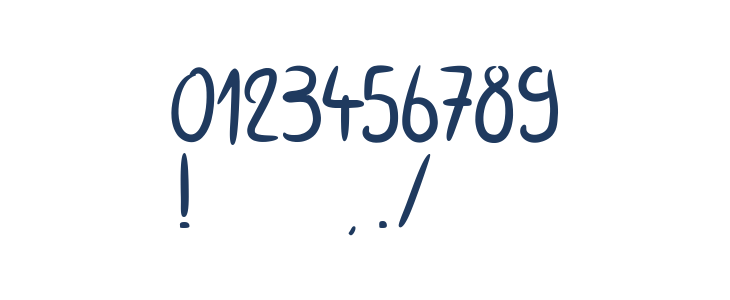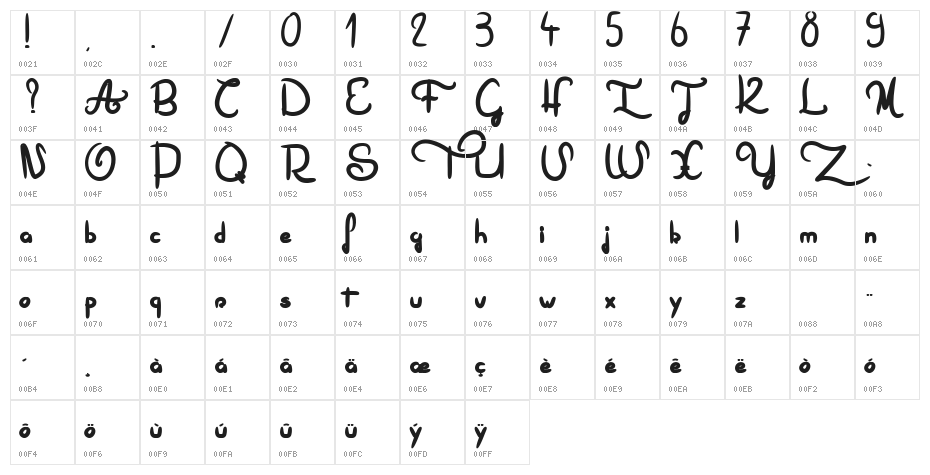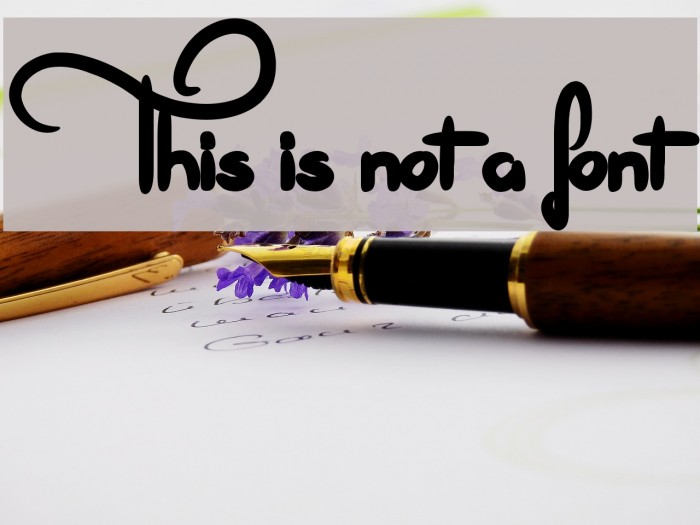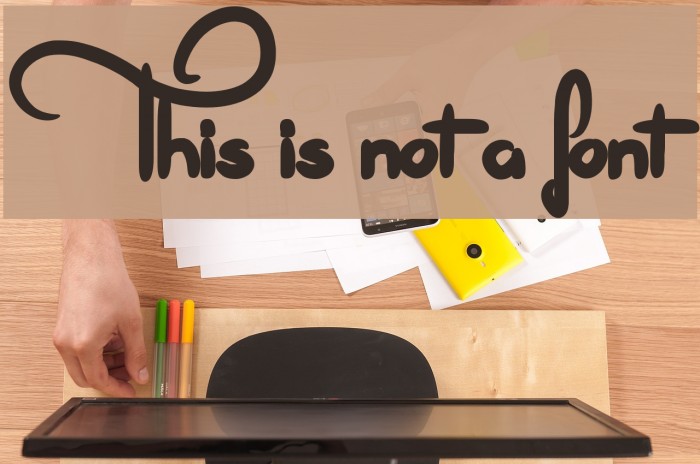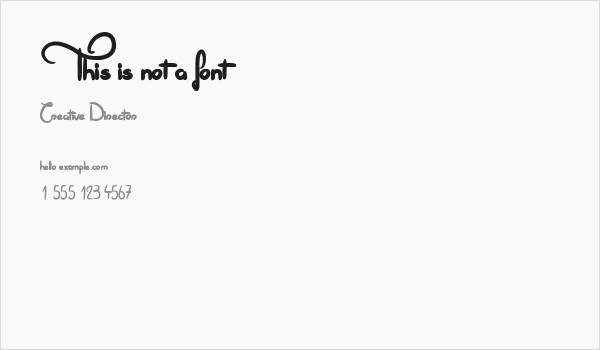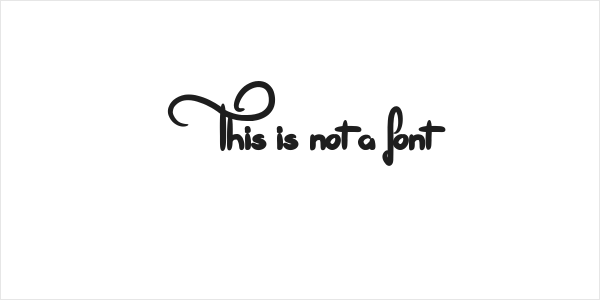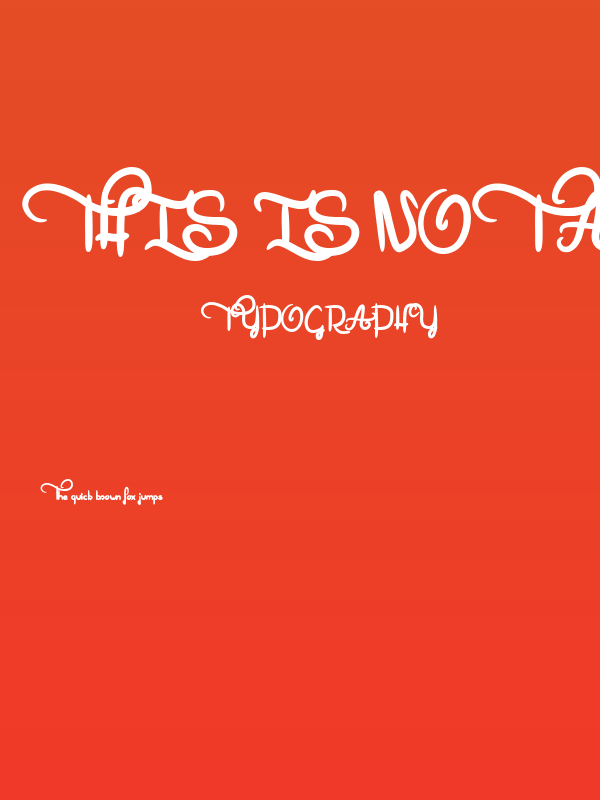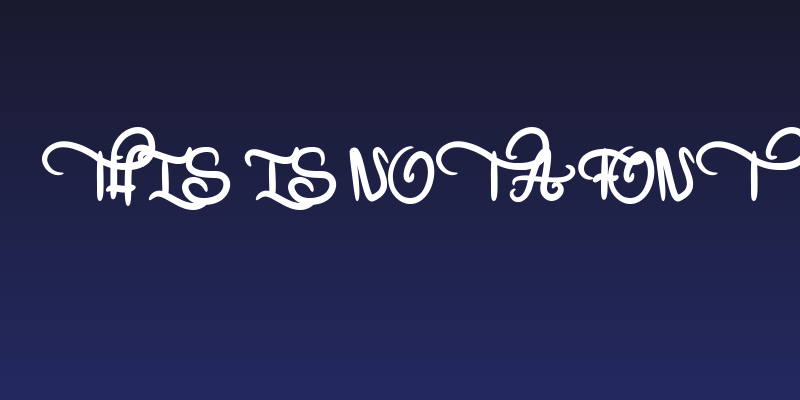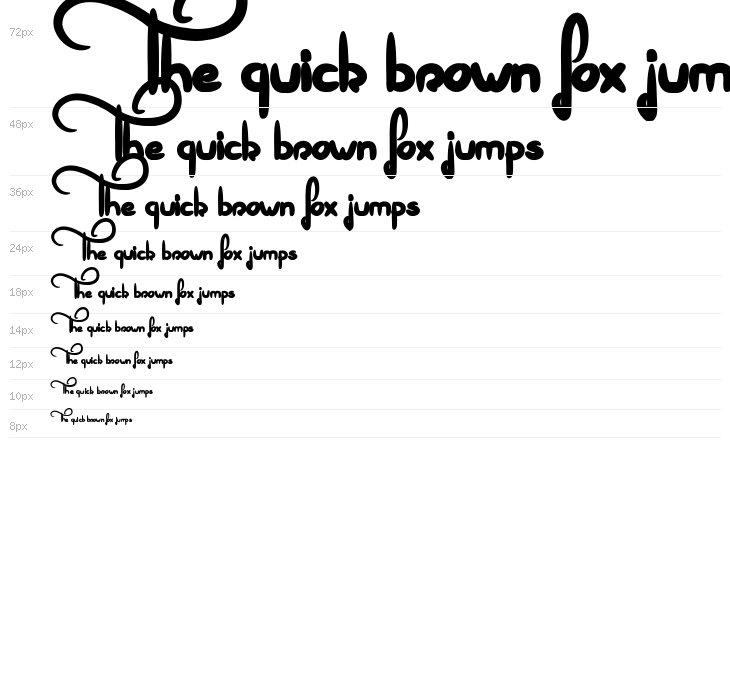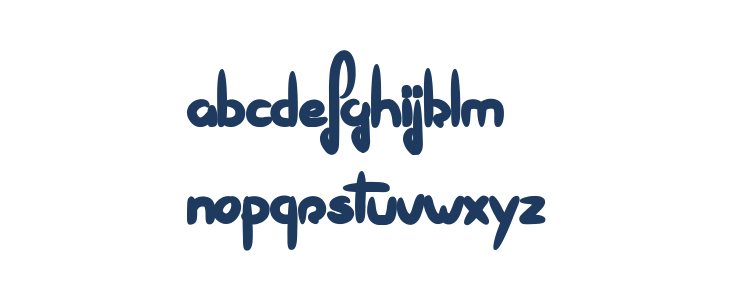
This is not a font Font
This is not a font Description
This font features a playful and whimsical style with a handwritten appearance. The uppercase letters are characterized by their flowing, cursive-like forms, while the lowercase letters maintain a more consistent baseline with rounded edges. The numerals are bold and slightly exaggerated, adding to the font's overall quirky charm. Special characters like the exclamation mark and question mark are designed with a similar playful flair, making this font ideal for creative and informal projects.
| Proposed Projects | Ideal for greeting cards, children's books, playful branding, and creative posters. |